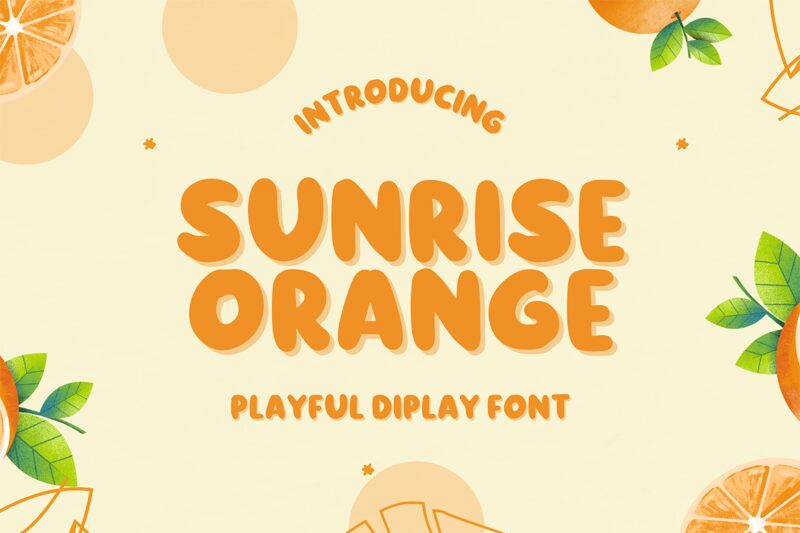
Sunrise Orange
Sunrise Orange font by Fikryal studio is a free cartoon display typeface with big, bubbly letters that look like they’ve been puffed up with air. The shapes are plump, rounded, and slightly uneven, giving every word a friendly, hand-crafted bounce. Heavy black fills and tight spacing make it read clearly even at a distance, while the soft curves keep it warm and approachable instead of shouty.
Using Sunrise Orange, you can instantly dial up the fun on children’s book covers, birthday invitations, toy packaging, game logos, classroom posters, and playful social graphics. This free font shines when it’s set large and bold, where its chunky silhouettes can really squish together. Pair it with a simple geometric sans for small supporting text to keep layouts lively but still easy to read.